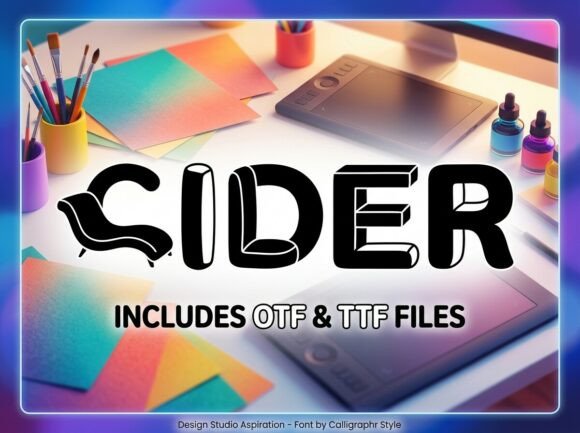
Redefine Your Creative Workspace with Cider Font
I’ll never forget the design struggle is real moment I had while working on a branding project for a boutique interior design studio. My client wanted a font that exuded sophistication, comfort, and a touch of avant-garde personality. I scoured the internet, tried out countless fonts, but nothing seemed to fit the bill. That was until I stumbled upon Cider Font. With its bold, architectural letterforms and smooth curves, it was love at first sight! In this article, I’ll share my experience with Cider Font, its features, and how to make the most of it in your designs.
An Honest Review of Cider Font
What I Love About Cider Font
- ✨ Sophisticated and elegant design: Cider Font boasts a unique blend of 3D extrusions and smooth curves that mimic high-end studio decor.
- ✅ Versatile and highly legible: Its massive structural weight and avant-garde personality make it perfect for a variety of design applications, from logos to social media headers.
- 💡 Perfect for creative industries: Cider Font is specifically designed for independent interior design branding, boutique studio identities, creative agency logos, and more.
While Cider Font is an excellent choice for many design projects, there are a few things to keep in mind:
- ⚠️ Not suitable for body text: Due to its bold and architectural nature, Cider Font is best used for headlines, titles, and short phrases.
- 🤔 Limited font weights: Currently, Cider Font is available in a limited range of weights, which may not offer the flexibility you need for certain design projects.
The Backstory of Cider Font
Cider Font was designed with the creative workspace in mind. Its creator, a renowned type designer, aimed to craft a font that captured the essence of a “curated-and-comfortable” soul. Inspired by high-end studio decor and avant-garde design, Cider Font is the perfect choice for creative industries.
| What is Cider Font best used for? | Cider Font is perfect for independent interior design branding, boutique studio identities, creative agency logos, and high-impact social media headers. |
| Is Cider Font suitable for body text? | No, Cider Font is best used for headlines, titles, and short phrases due to its bold and architectural nature. |